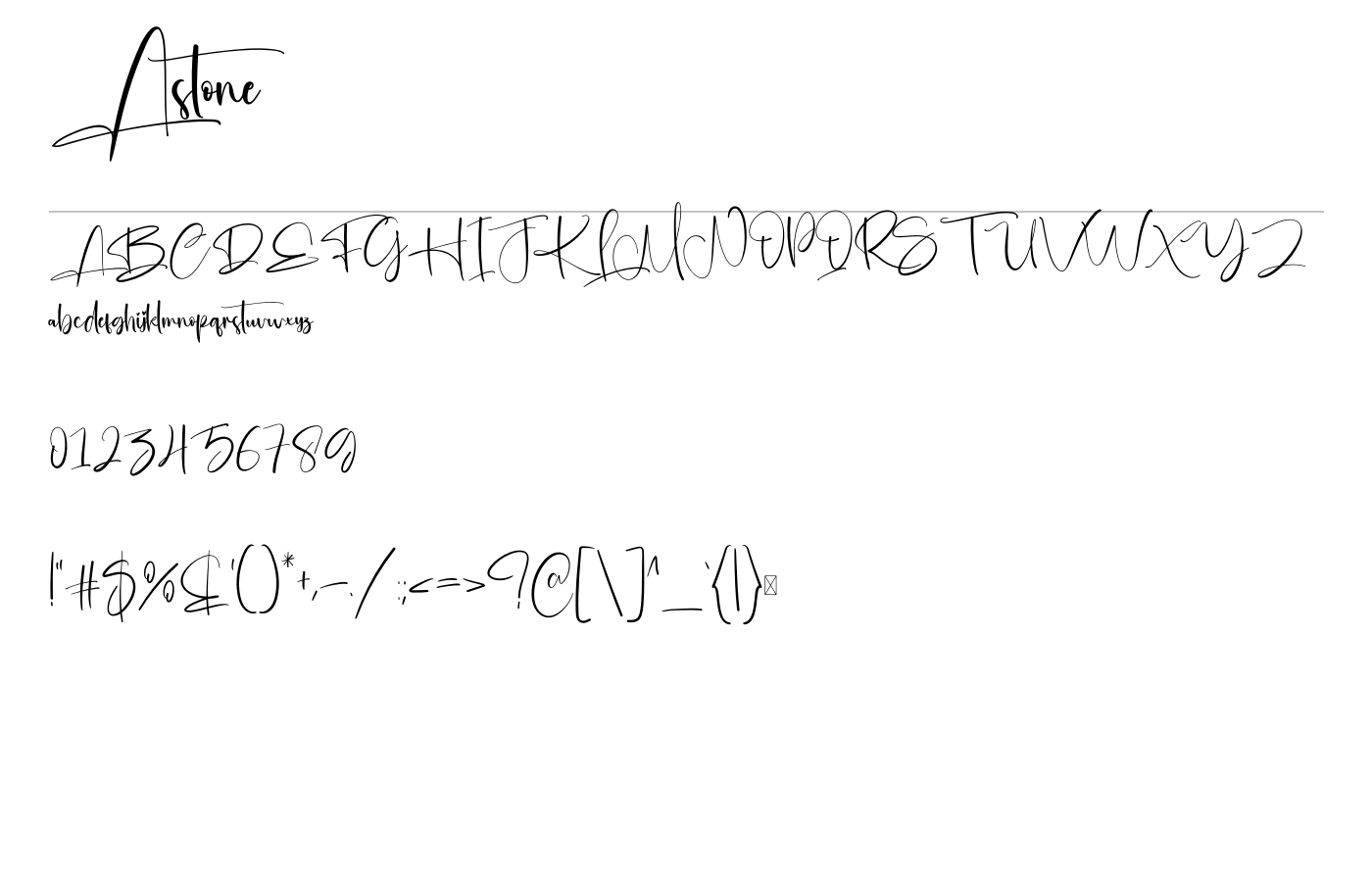
Astone is a delicate, handwritten script font characterized by its tall, slender letterforms and elegant, flowing strokes. Its light weight and airy spacing give it a modern and sophisticated feel, perfect for stylish branding, invitations, and editorial projects that require a personal, artistic touch. This font shines in designs seeking a refined yet approachable look that conveys creativity and elegance.
Astone Font